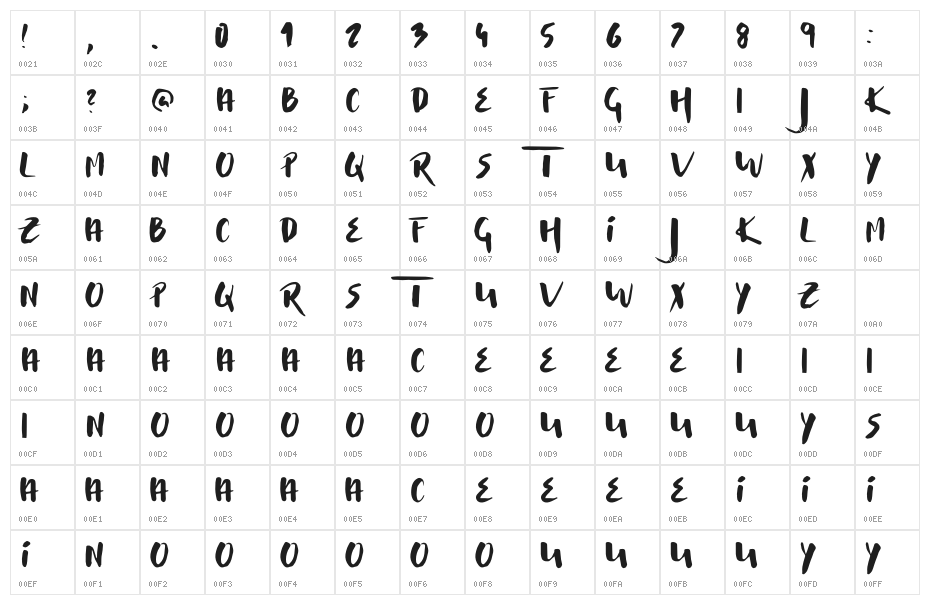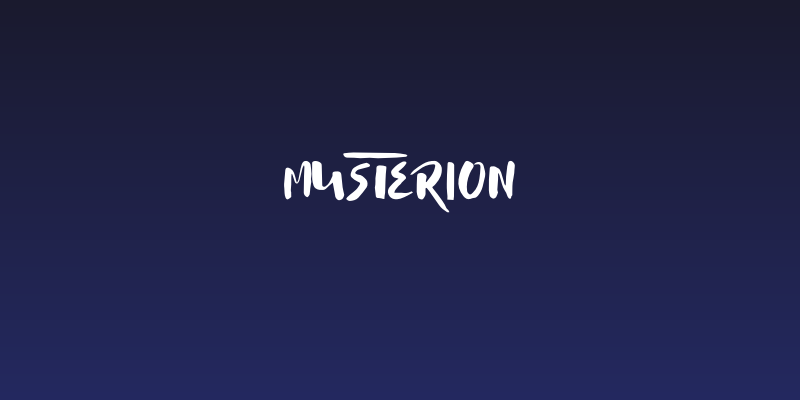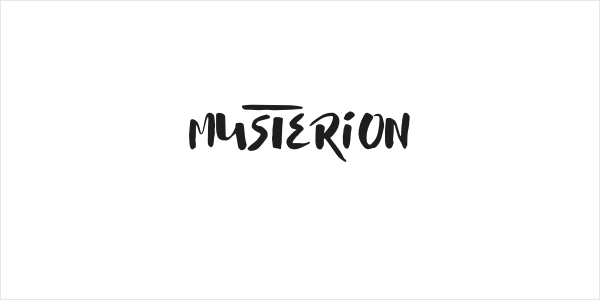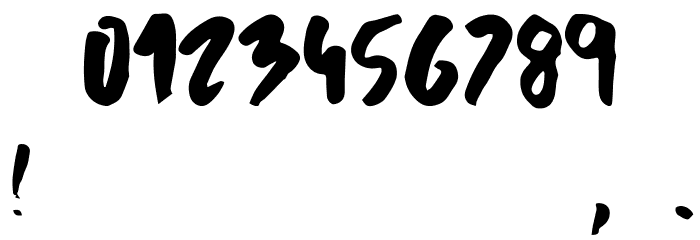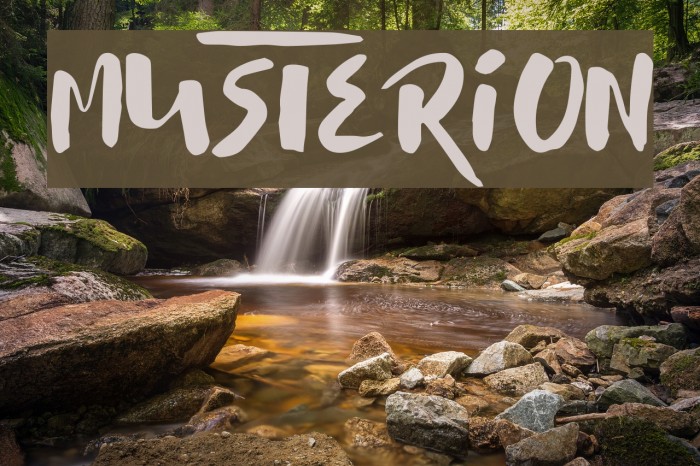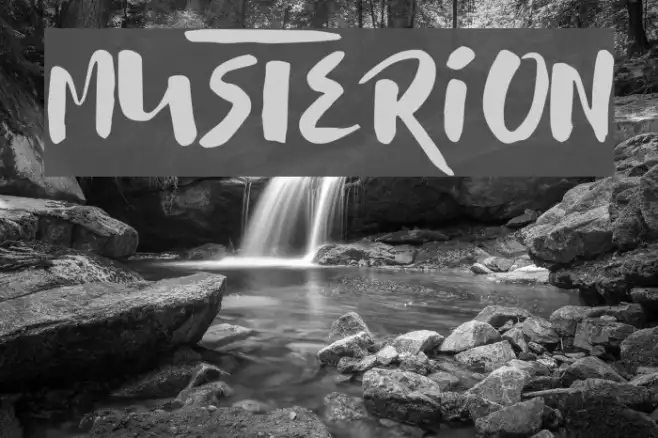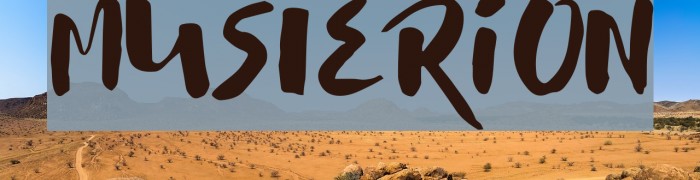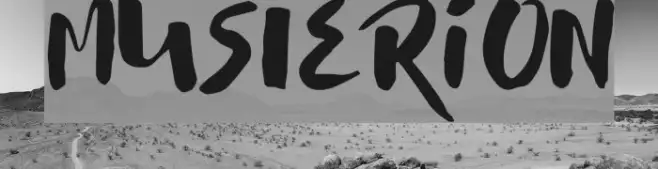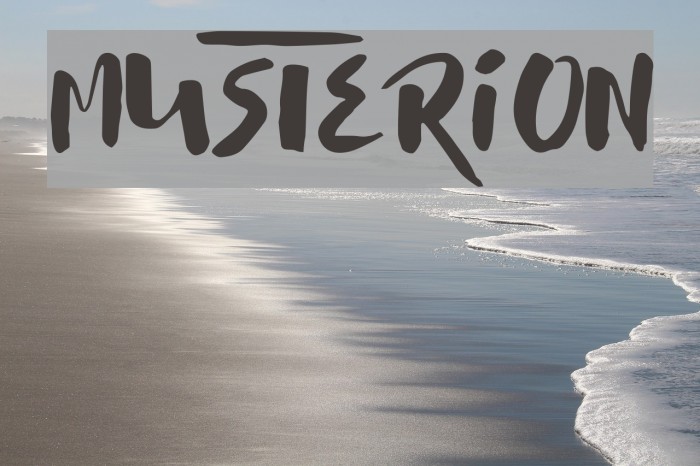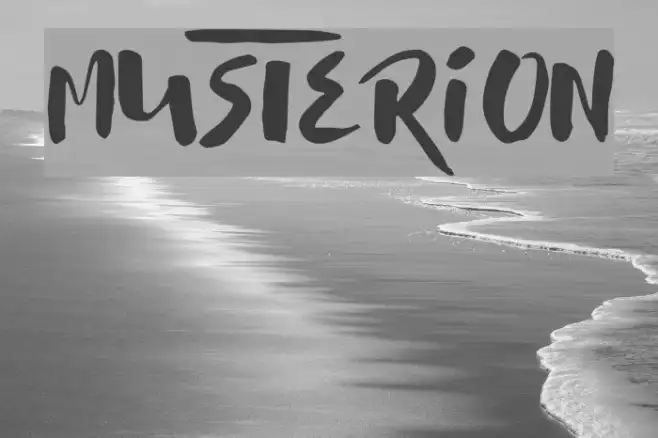
Musterion Font
Musterion Description
This font exudes a bold and expressive handwritten style, characterized by its thick, brush-like strokes and dynamic flow. The uppercase and lowercase letters maintain a consistent, energetic rhythm, with a slightly irregular baseline that adds to its casual and artistic appeal. The numbers and special characters are equally bold, ensuring a cohesive look across all elements. This font is perfect for projects that require a personal touch, such as invitations, posters, or branding materials that aim to convey creativity and individuality.